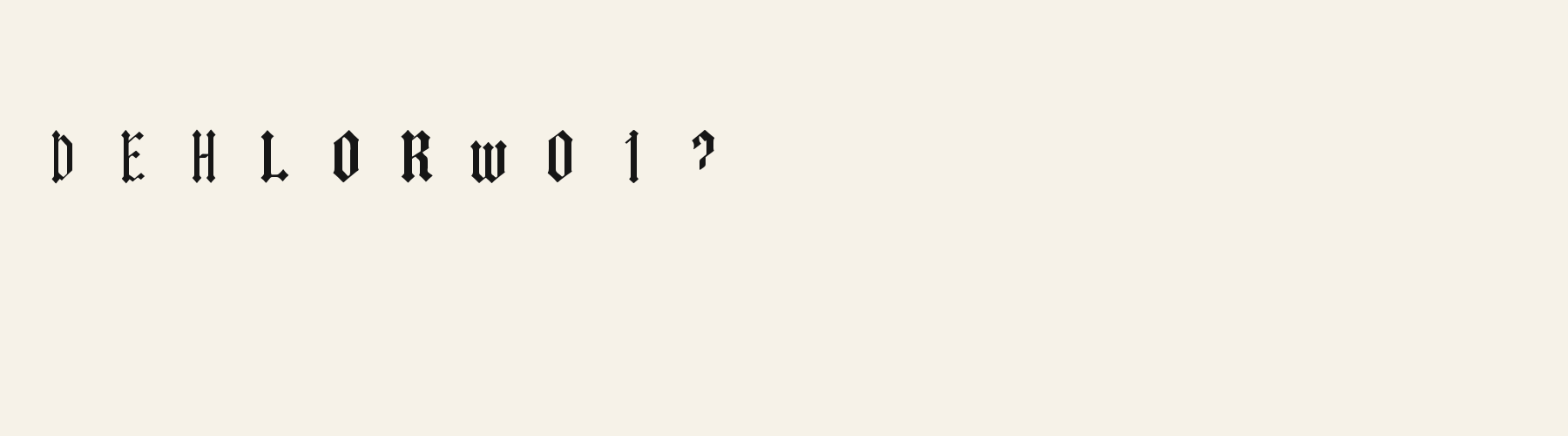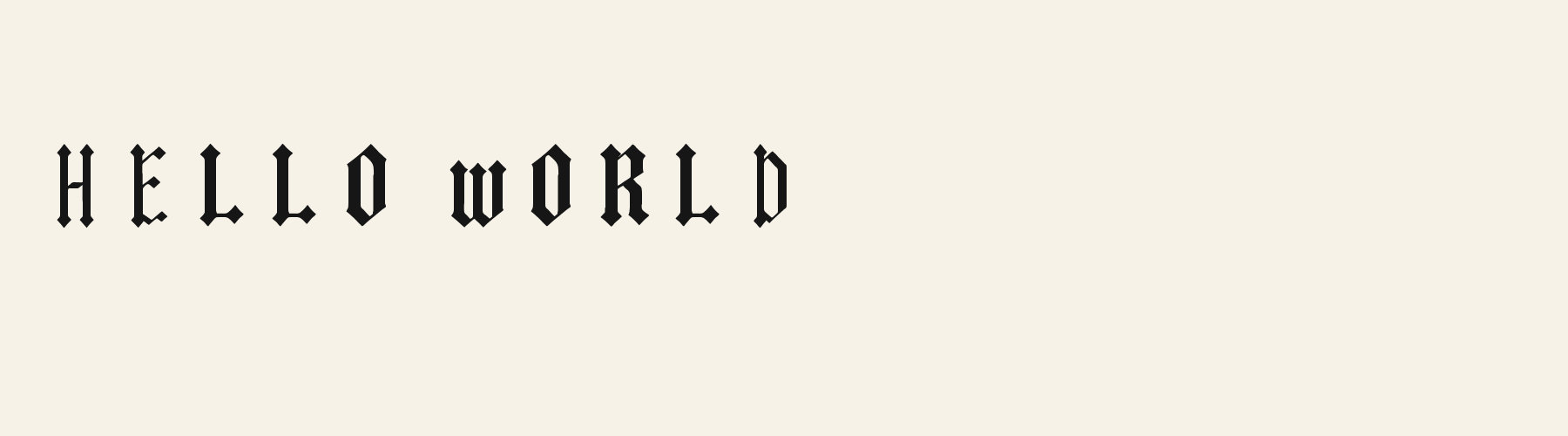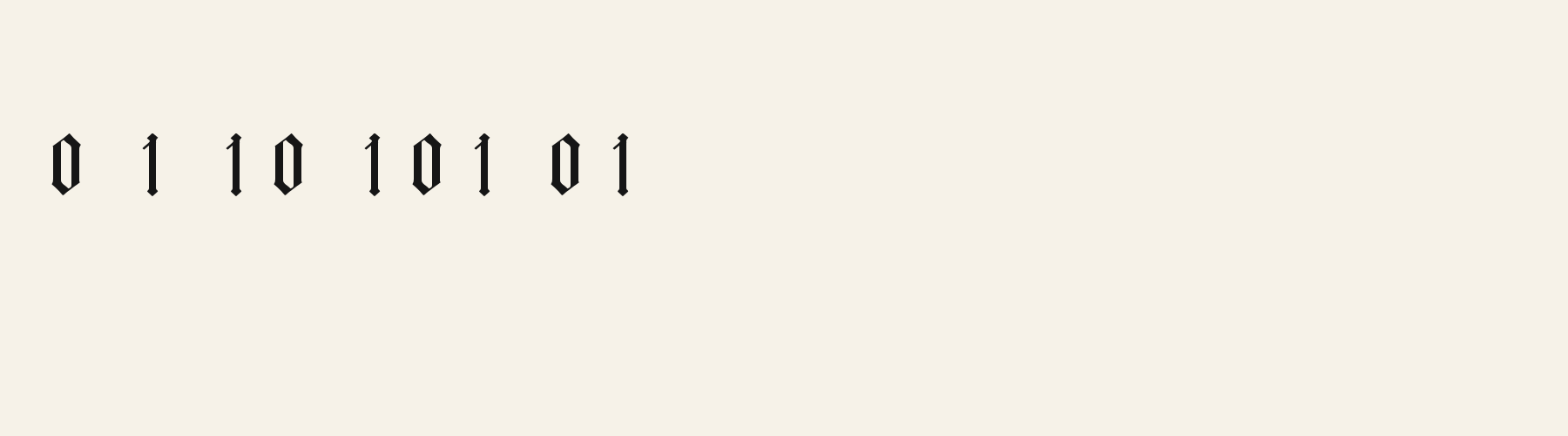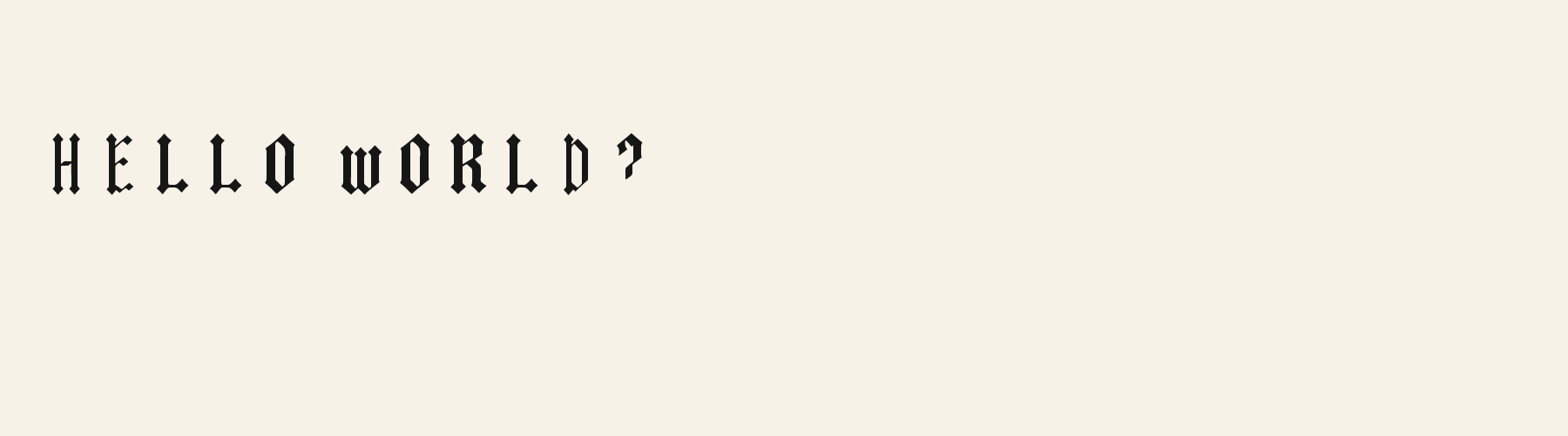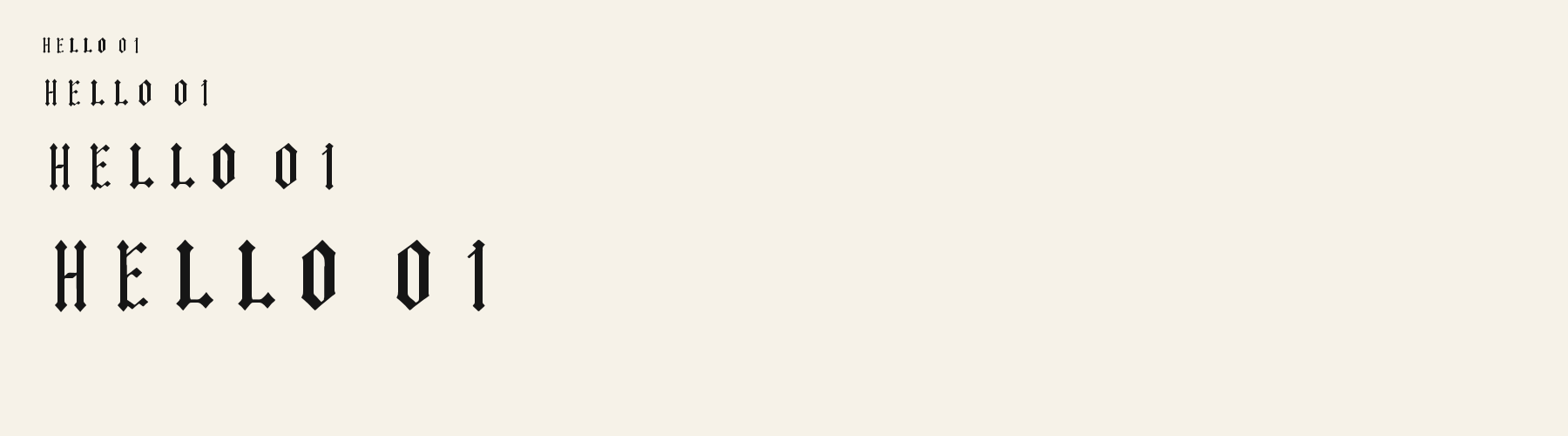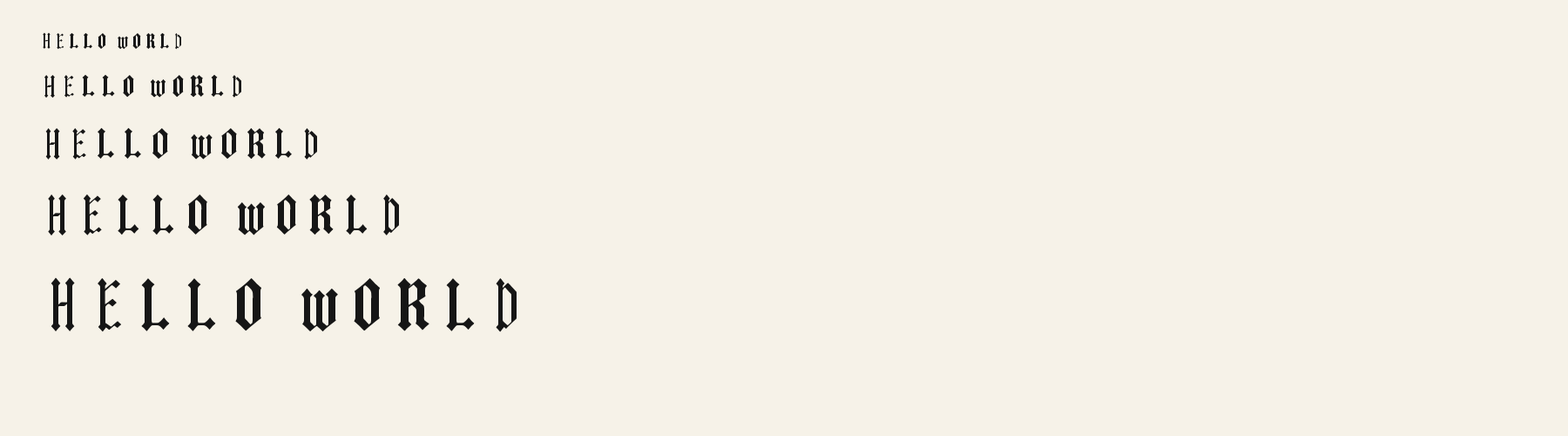
Gothic Blackline Diamond Terminal Upright Blackletter Font
Gothic Blackline builds its character from tall black stems, narrow openings and diamond-shaped tips.
Diamond Terminal Upright Blackletter Letterforms
Gothic Blackline builds its character from tall black stems, narrow openings and diamond-shaped tips. The H links its uprights with a thin, slightly stepped crossbar, while the E breaks its right edge into short angular arms. The R has a faceted upper bowl and a sharply bent leg that finishes in a pointed foot. Thin connecting strokes interrupt the heavier verticals without softening their rigid rhythm. The small o forms a slim upright enclosure with pointed joins, bringing a lower shape into the otherwise towering word silhouette. Together these details give short wording a stern, ceremonial mood with little curling ornament.
Inspect repeated uprights, narrow o counters and the angular R in your actual wording. Check punctuation and letter pairs at the intended size, especially where pointed feet approach adjacent strokes. These specimens show Latin forms; check accented text and other scripts separately for coverage and appearance.
Try this face for the main heading with a plain sans serif for supporting text and small labels. Its diamond tips and tightly enclosed bowls supply the ornament; a companion with open counters and simpler joins can keep secondary information distinct.
Compare the original spacing with a wider setting. Extra space can separate the diamond terminals, while tighter spacing gathers the upright stems into a more continuous dark rhythm. Check the repeated L shapes and the space around W.
Gothic Blackline uses solid black stems, narrow bowls and crisp diamond terminals. Its restrained ornament and upright construction give the shared wording a compact, emphatic silhouette.
Poster. Heavy upright stems and pointed terminals give a band poster title a severe rhythm that anchors an otherwise sparse composition. BLACK CASK
Product label. Narrow letterforms leave room for a short product name, while angular bowls lend the label a formal vintage character. Silent Order
Book or album cover. Solid black strokes and diamond tips give an album cover title a distinct silhouette against a plain background.
With an x-height of 78.6% of the cap height, its lowercase stands above the 74.4% median for decorative fonts, taller than 31 of the 36 other decorative fonts. Ascenders on b, d, h, k and l rise 6.3% above the capitals, and descenders on g, j, p, q and y drop 10% of the cap height below the baseline, the shallowest of all 37 decorative fonts. It sets narrow: an average lowercase letter, spacing included, is 58.7% as wide as the capitals are tall (an average capital, 61.4%), 22.9% less than the median for decorative fonts, so more words fit on a line. The o is an upright oval, 0.57 times as wide as it is tall, and W is the widest capital, at 1.53 times the width of H. The O stops 7.9% of the cap height short of H and dips 1.1% below the baseline.
The letters stand upright, leaning less than 2.5° either way. Ink covers 35.7% of each lowercase letter's box (its advance width by the cap height), lighter than 20 of the 36 other decorative fonts. The contrast is mild: the sides of o and O are 1.24 times as thick as their tops and bottoms.
Its 95 characters include 52 Latin letters, plus 43 figures, punctuation marks and symbols; there are no accented Latin letters beyond A to Z. The word space measures 41.6% of the cap height, and the blank space either side of a lowercase letter takes up 16.8% of its width. The font carries no kerning, so spacing comes from each letter’s own side bearings. The figures have different widths, so columns of numbers set in Gothic Blackline will not line up exactly.
- Ledger Slab (serif), Serif Flared Humanist (serif) and Pivot Sans (sans serif) are drawn on a different letter structure, so Gothic Blackline can carry the headings while one of them sets the text. Each has its own page with a type tester for trying the pair.
- In the same decorative style: Circus Tuscan (44% wider, tuscan effect); Gothic Tattoo Spire (24% narrower, lower x-height); Slime Slab (58% wider, drip effect).